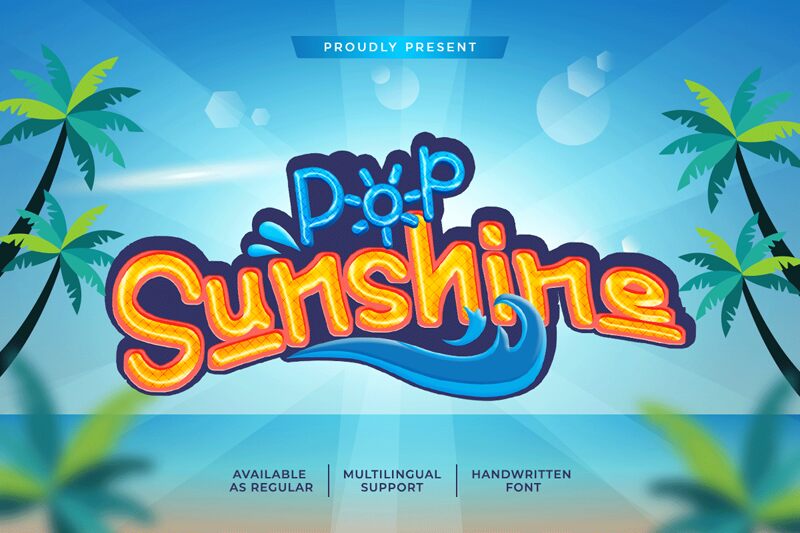
Pop Sunshine font is a playful free font with a casual mood by Kong Font. That divided the word “sunshine” to make two words just like the noun “popcorn”; and it is indeed pop sunshine! We see this fun typeface as artistic, sweet, and vibrant.
The fond can be welcoming for event banners, iced drink packaging design, or juice shop names. It comes also in handy for podcast covers, YouTube cover visuals, lifestyle t-shirt usage, and more!